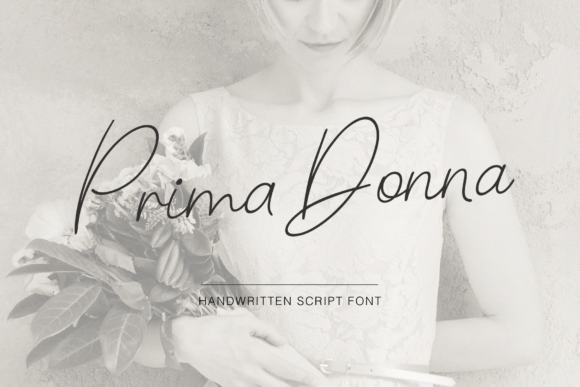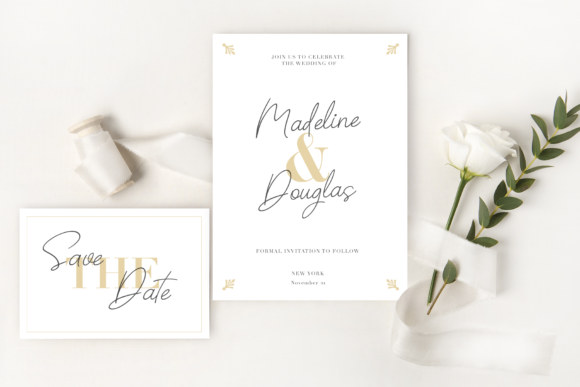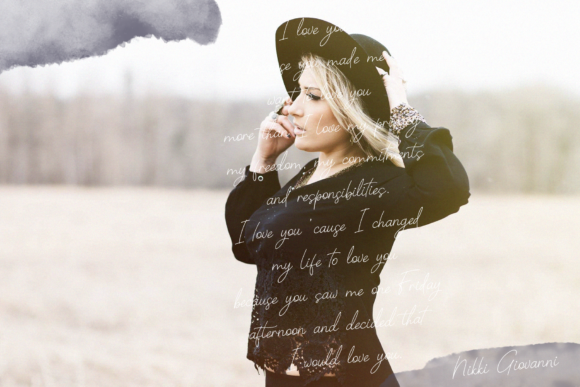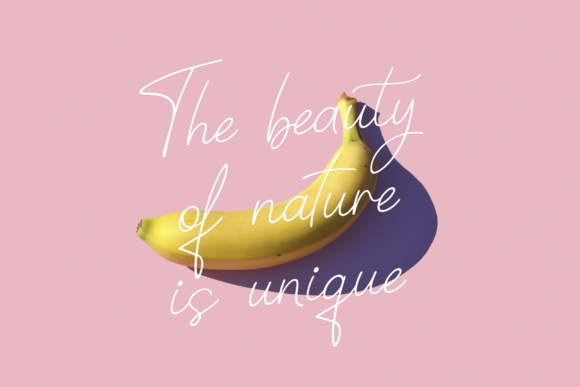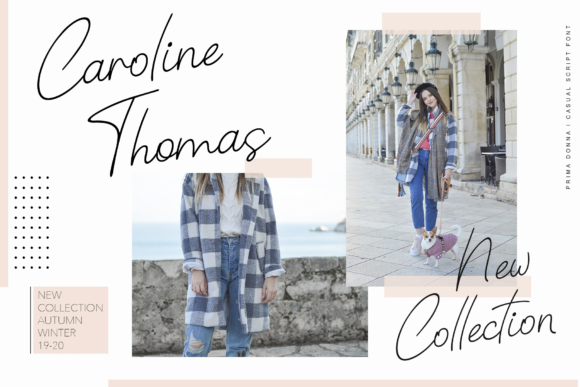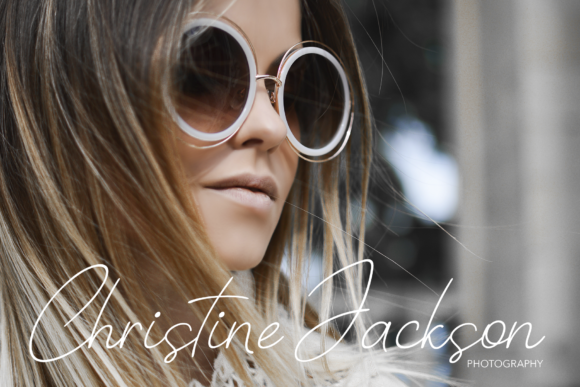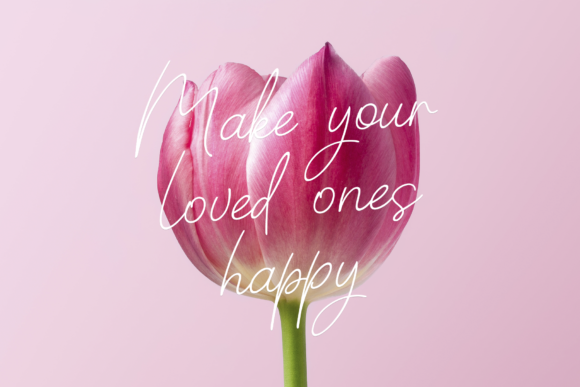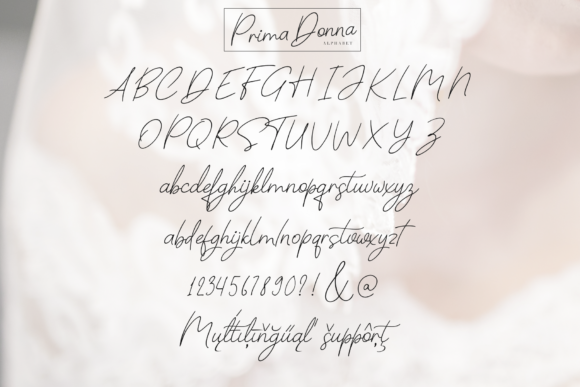
HomeScript FontsPrima Donna Font Script Fonts Prima Donna Font FacebookXPinterestWhatsApp Prima Donna Font Poster 2 Prima Donna Font Poster 3 Prima Donna Font Poster 4 Prima Donna Font Poster 5 Prima Donna Font Poster 6 Prima Donna Font Poster 7 Prima Donna Font Poster 8 About Prima Donna Font Prima Donna is a stunning script font with a bold vibe. Fall in love with its unique charm! DOWNLOAD ON CREATIVE FABRICAThis font is sold and delivered by Creative Fabrica. Font Canyon may earn a commission if you buy through this link. People also explored Happy Saturday Font Married Font Hankring Font Retro Rainbow Font Wonderfull Mother Font Evening Breeze Font The Eldians Font Sweet Almond Font Yellow Banana Font 318 0 TagsPrima Donna Font Previous articleBacar FontNext articleCarocks Font LEAVE A REPLY Cancel reply Comment: Please enter your comment! Name:* Please enter your name here Email:* You have entered an incorrect email address! Please enter your email address here Website: Save my name, email, and website in this browser for the next time I comment. Personal Use Free Love Memories Personal Use Free Read more about this font Spaghetti Personal Use Free Read more about this font Lemon Milk Font Personal Use Free Read more about this font Sunflower Personal Use Free Read more about this font BLOG Free vs Paid Fonts: Why Investing in Premium Fonts Is Worth It Free vs Paid Fonts: Why Premium Fonts Are Worth It in 2025 The debate of free vs paid fonts continues in the design world. While... Top 10 Handwritten Fonts That Elevate Your Designs How to Install and Use Fonts on Windows, macOS, and Web Projects 5 Fonts That Will Dominate Design Trends in 2026